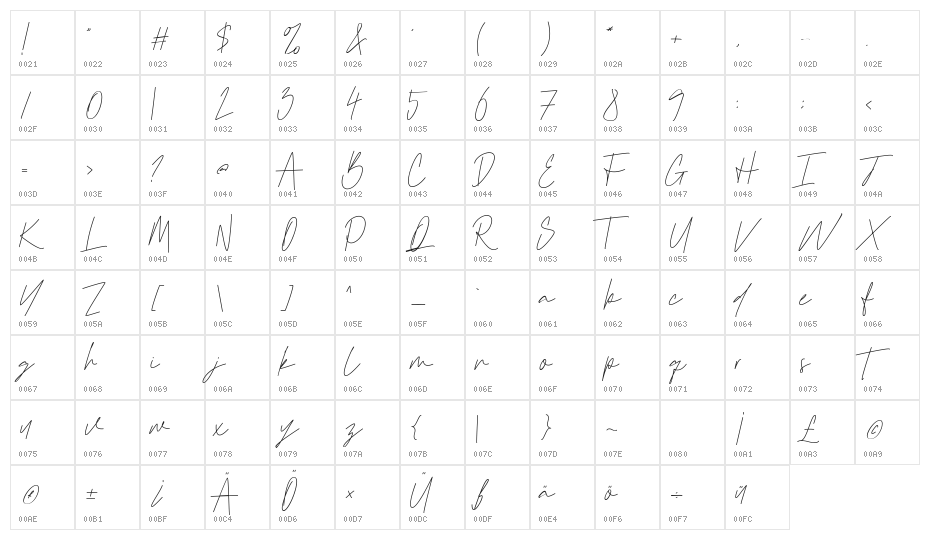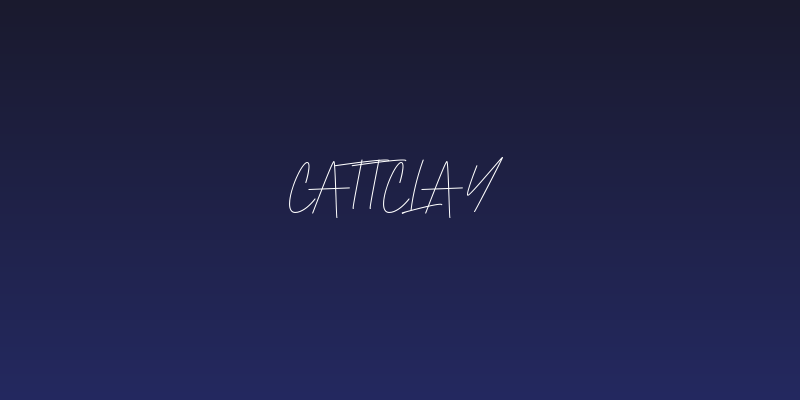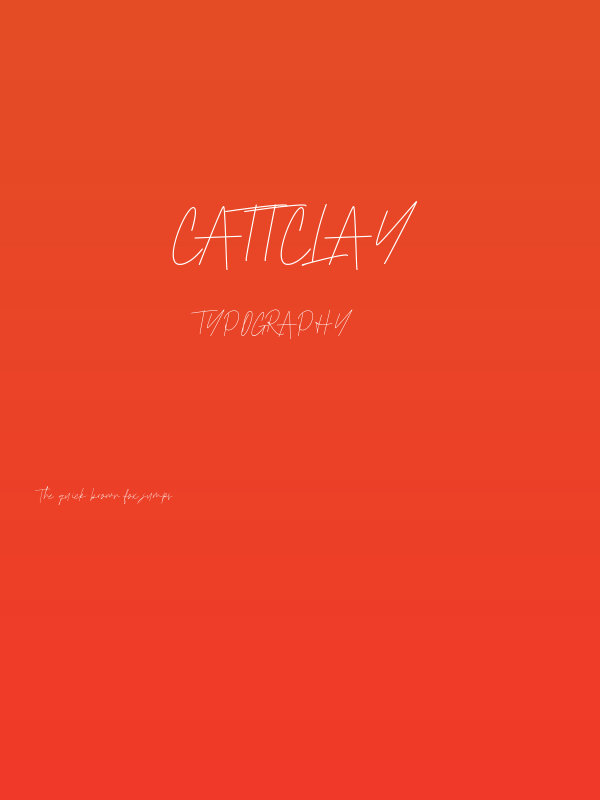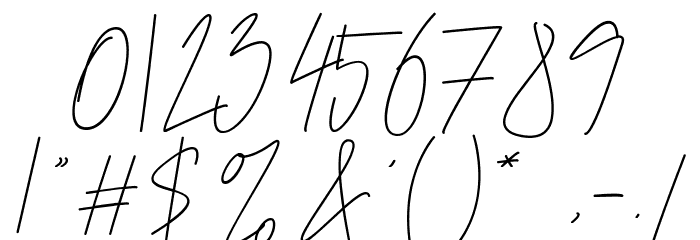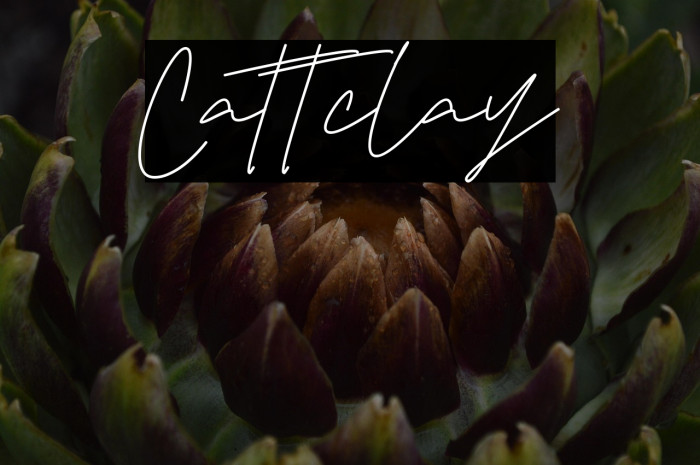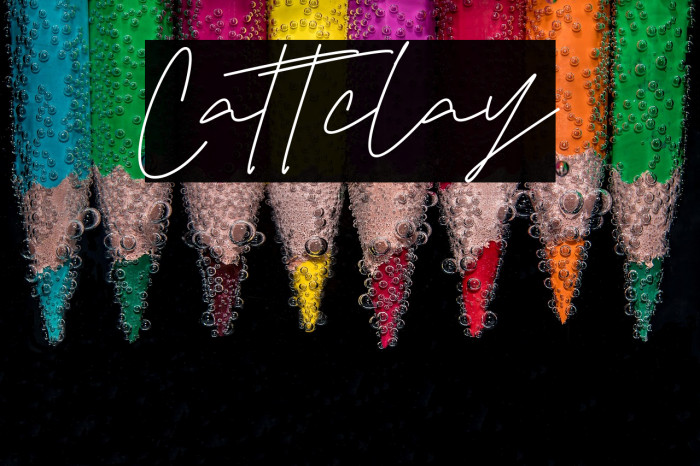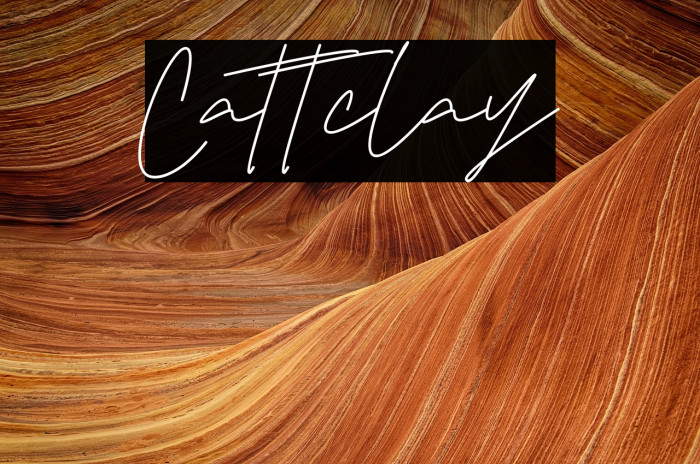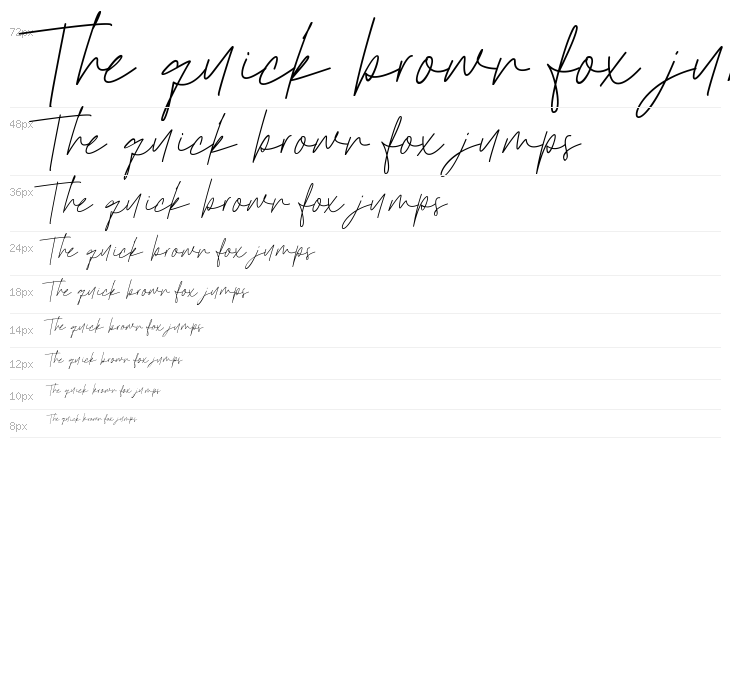
Cattclay Font
Cattclay Description
This font exudes a casual, handwritten style with a sense of spontaneity and fluidity. The characters are crafted with a thin, consistent stroke that gives an airy and light appearance. The uppercase letters are tall and slightly slanted, while the lowercase letters maintain a cohesive flow, mimicking natural handwriting. The numerals and special characters follow the same style, ensuring uniformity across the font. This font's informal and approachable nature makes it ideal for projects that require a personal touch or a creative flair.
| Overall Style | Casual, Creative |
| Use Case | Logos, Invitations, Personal notes |
| Proposed Projects | Ideal for personal notes, creative projects, invitations, and branding that seeks a personal touch. |